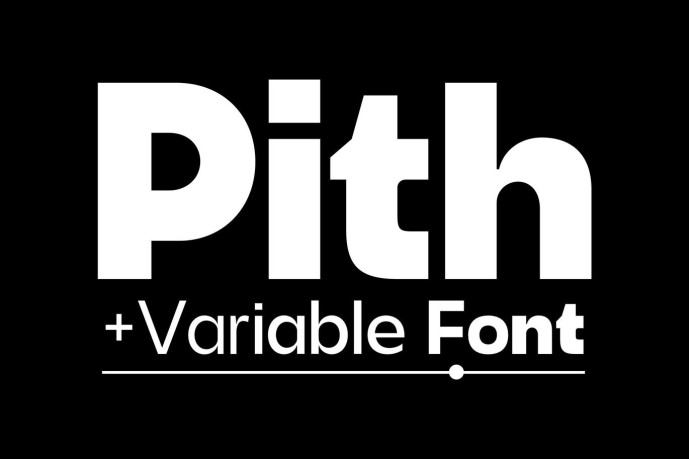
Pith Font
Designer: Ikhsan
Pith is a modern sans serif variable font crafted for designers who value flexibility, precision, and contemporary aesthetics. Featuring clean geometry, balanced proportions, and smooth letterforms, Pith delivers exceptional readability while adapting effortlessly to a wide range of creative applications.
Built with Variable Font technology, Pith allows seamless adjustment of weight, giving designers greater creative control while reducing the need for multiple font files. Whether you’re creating bold headlines or refined body text, Pith offers a smooth and efficient typography experience.
Its versatile and minimalist design makes it an excellent choice for both digital and print projects, combining modern elegance with professional performance.
Perfect For
Brand Identity & Logo Design
Editorial & Magazine Layouts
Posters & Advertising
Packaging Design
Social Media Graphics
Website & UI Design
Fashion & Lifestyle Branding
Product Labels
Business Presentations
Modern Typography Projects